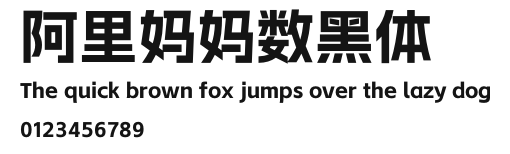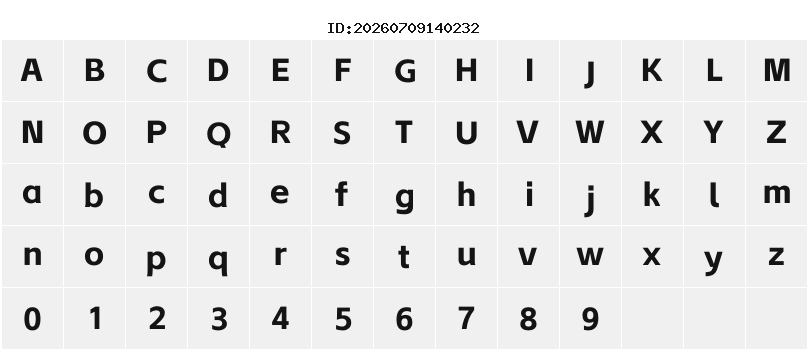
阿里妈妈数黑体 Preview
• Font Name: 阿里妈妈数黑体
• Designer: 刘川、陈奇辉、洪良奋、韩小明、李丹丹、陈养剑、龚巍、壹丝、李穆
• Manufacturer: Alibaba Design
About 阿里妈妈数黑体.otf
阿里妈妈数黑体.otf is a modern, elegant sans-serif font designed for ultimate readability and visual harmony. Perfect for branding, headlines, web design, and print materials.